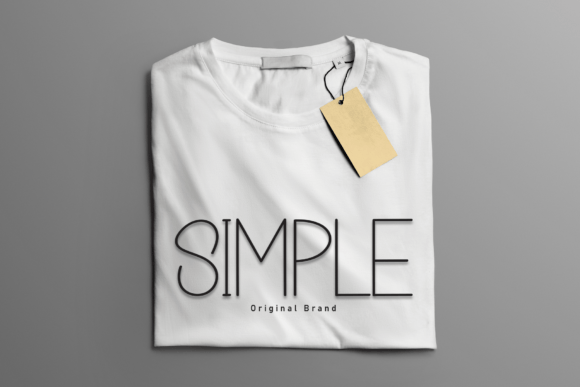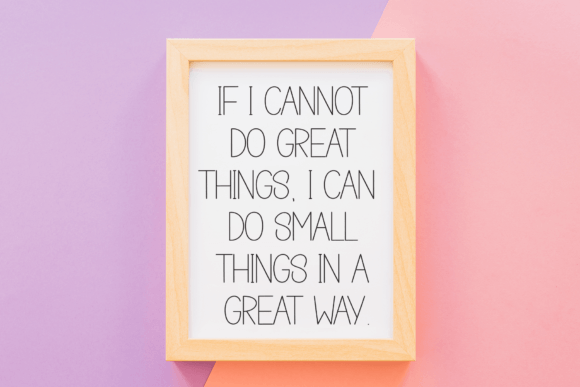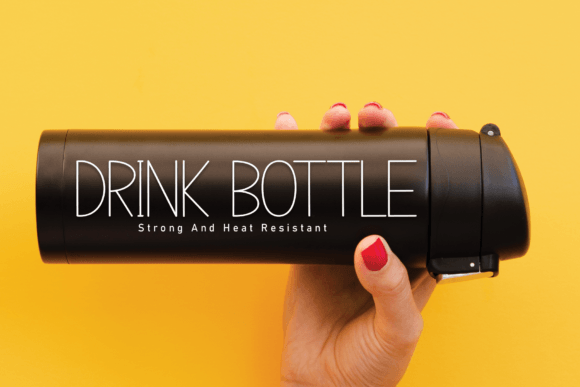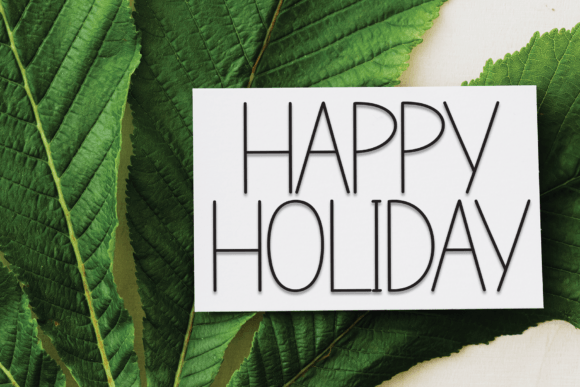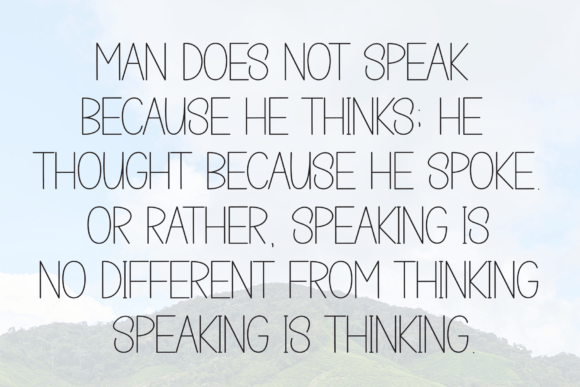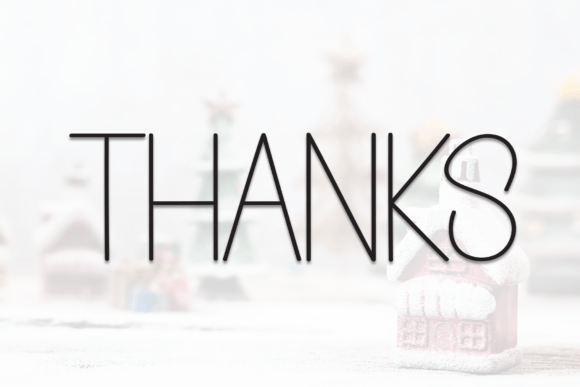
Christmas Farmhouse Font: Add a Touch of Whimsy to Your Designs
Are you looking for a font that can add a dash of personality to your designs? Look no further than the Christmas Farmhouse Font! This charming and affable handwritten display font is perfect for infusing your creations with a delightful flair. In this article, we’ll take a closer look at the features of this captivating typeface and explore how it can elevate your design projects.
A Playful Vibe for Your Designs
The Christmas Farmhouse Font exudes a playful vibe that’s sure to capture the attention of your audience. Its sweet and friendly character makes it an ideal choice for crafting heartfelt wedding invitations, personalized cards, and any design project seeking a sprinkle of joy. Whether you’re a designer, crafter, or DIY enthusiast, this font is sure to become a go-to tool in your creative arsenal.
Perfect for Whimsical Elegance and Free-Spirited Fun
One of the standout features of the Christmas Farmhouse Font is its ability to balance whimsical elegance with free-spirited fun. This font is perfect for designers who want to add a touch of sophistication to their creations without sacrificing playfulness. The result is a design that’s both enchanting and eye-catching, making it perfect for a wide range of projects.
Use Cases for the Christmas Farmhouse Font
So, what can you use the Christmas Farmhouse Font for? The possibilities are endless! Here are a few ideas to get you started:
- Wedding Invitations: Create beautiful, one-of-a-kind wedding invitations that set the tone for a magical and unforgettable celebration.
- Personalized Cards: Add a personal touch to your greeting cards, making them extra special for birthdays, holidays, and other special occasions.
- DIY Crafts: Use the Christmas Farmhouse Font to add a touch of personality to your DIY crafts, such as homemade decorations, gift tags, and more.
- Digital Designs: Incorporate the font into your digital designs, including social media graphics, blog posts, and website headers.
Why Choose the Christmas Farmhouse Font?
With so many fonts available, why choose the Christmas Farmhouse Font? Here are just a few reasons why this font stands out:
- Unique Character: The Christmas Farmhouse Font has a unique character that’s both playful and elegant, making it perfect for designers who want to add a touch of personality to their creations.
- Easy to Read: Despite its playful vibe, the font is easy to read, making it perfect for use in a wide range of projects.
- Versatile: The Christmas Farmhouse Font is versatile and can be used in a variety of contexts, from digital designs to print materials.
Tips for Using the Christmas Farmhouse Font
To get the most out of the Christmas Farmhouse Font, here are a few tips to keep in mind:
- Experiment with Sizes: Don’t be afraid to experiment with different font sizes to add visual interest to your designs.
- Pair with Other Fonts: Try pairing the Christmas Farmhouse Font with other fonts to create a unique and eye-catching combination.
- Use in Combination with Images: Use the font in combination with images to add an extra layer of visual interest to your designs.
In conclusion, the Christmas Farmhouse Font is a charming and affable handwritten display font that’s perfect for infusing your designs with a delightful flair. With its playful vibe, sweet and friendly character, and versatility, this font is sure to become a go-to tool in your creative arsenal. Whether you’re a designer, crafter, or DIY enthusiast, the Christmas Farmhouse Font is sure to add a touch of whimsy and elegance to your creations.